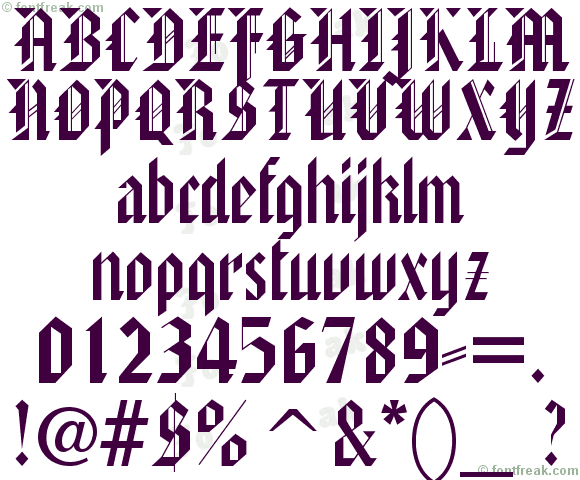
American Text
About American Text
The American Text font, designed by Dieter Steffmann, is a striking serif typeface that embodies a classic American style with a modern twist. Released as freeware, this font showcases a unique blend of traditional and contemporary elements, making it an excellent choice for various design projects. The visual characteristics of American Text include a bold stroke weight and a moderate contrast that adds depth and readability. The font features distinct angular serifs and a slightly condensed letterform, which contribute to its commanding presence on any medium.
This font is particularly well-suited for a range of applications, including wedding invitations, where its elegance can enhance the romantic theme. It also works effectively for movie posters, giving a dramatic flair that captures attention. Additionally, American Text can be utilized for restaurant menus, providing a sophisticated touch that aligns with upscale dining experiences. Graphic designers will find it valuable for branding projects, as it conveys authority and tradition, making it appealing for small business owners looking to establish a strong identity. Content creators can also leverage this font for impactful headlines in articles or promotional materials.
The target audience for American Text includes graphic designers, small business owners, and content creators who seek a versatile and visually appealing typeface. What sets the American Text font apart is its ability to merge classic design elements with modern usability, making it an exceptional choice for both print and digital applications. With the American Text font free download available, designers can easily incorporate this distinctive typeface into their projects, elevating their visual communication and ensuring a lasting impression.